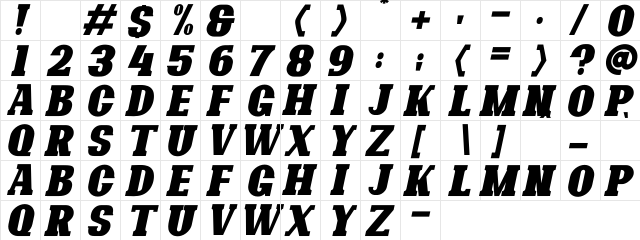
Bonaro Clean Italic Demo Clean Italic
Design Context for Bonaro Clean Italic Demo Typeface
Bonaro Clean Italic Demo is a composed and adaptable typeface that performs quietly and consistently across a wide range of design contexts. The dynamic lean of this cut emphasises speed and emphasis in any layout.
Pro Tip: Use Bonaro Clean Italic Demo for emphasis, pull quotes, and subheadings where its slanted energy can add rhythm to the layout.